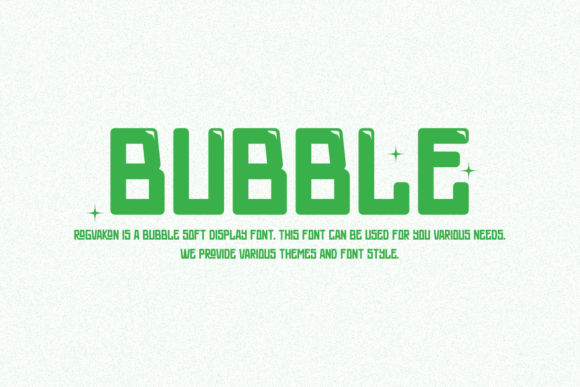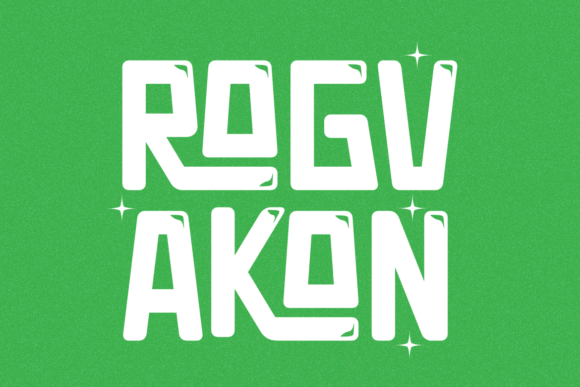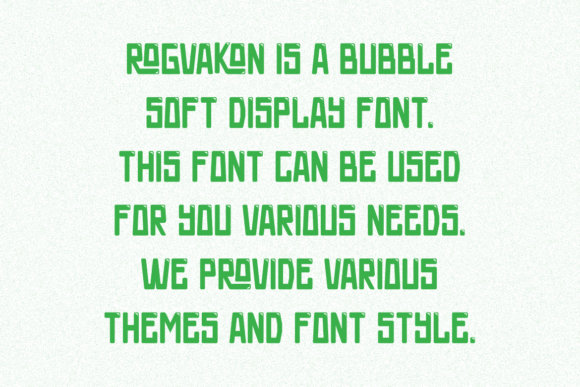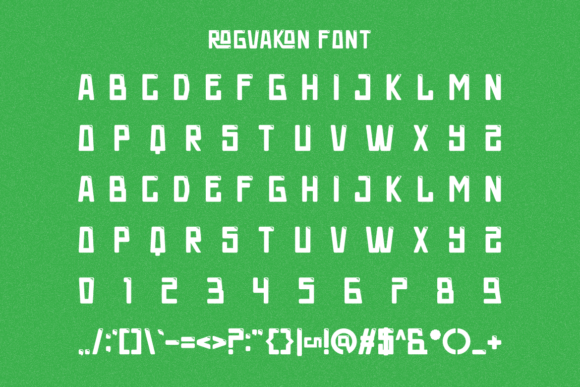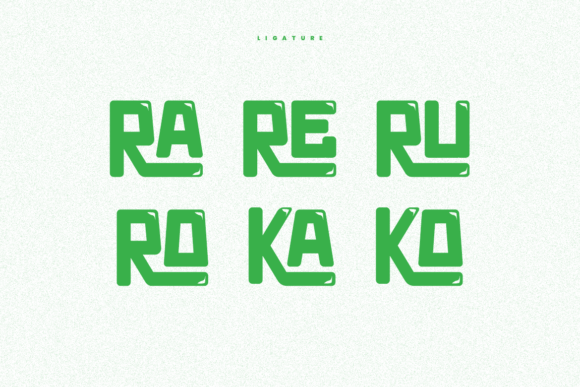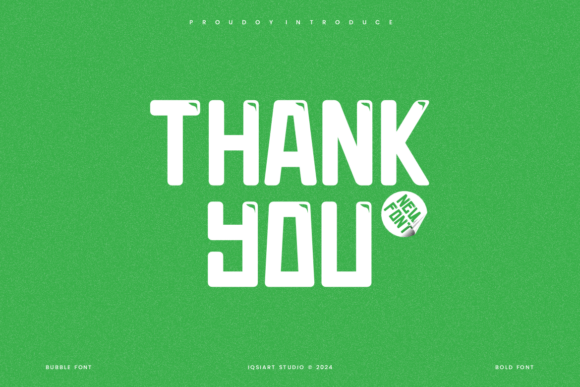
Introduction to Rogvakon Font
Remember that moment when you’re working on a creative project and you need the perfect font to make it pop? You’ve scoured through countless design resources, but nothing seems to capture the essence of your vision. That’s where Rogvakon Font comes in – a game-changing, high-quality font that’s about to take your design to the next level.
With its bold, bubbly, and shiny display style, Rogvakon Font is the perfect addition to any design project. Its rounded letters and fun, eye-catching style make it stand out from the crowd, guaranteeing your creative project gets the attention it deserves. Whether you’re looking for a free download or a design resource that’s sure to impress, Rogvakon Font is a valuable asset for any designer.
But what really sets Rogvakon Font apart is its versatility – it’s perfect for big headlines, playful designs, and even projects with transparent backgrounds. With Rogvakon Font, the possibilities are endless, and we can’t wait to see what you create with it!
Key Features of Rogvakon Font
- High-quality, professional design ideal for creative projects and design resources
- Unique, futuristic style with a transparent background, allowing for easy customization and layering
- Perfect for use in digital design, including logos, graphics, and UI elements, at resolutions up to 300 DPI
- Available in multiple font sizes, from 12pt to 72pt, making it versatile for various design applications
- Designed to be highly legible and visually striking, making it an excellent choice for any creative project
Honest Review: Rogvakon Font
I recently had the chance to work with the Rogvakon Font for a creative project, and I must say, it was a great experience. The font is a fantastic design resource for anyone looking to add a touch of elegance and sophistication to their work.
- High quality: The Rogvakon Font is incredibly detailed and smooth, making it perfect for printing and digital use.
- Transparent background: This feature allows for seamless integration with any background, giving you more creative freedom.
- ⚠️ Limited font styles: The Rogvakon Font comes in a limited number of styles, which may not be suitable for projects that require a wide range of font options.
- ⚠️ Not ideal for bold text: While the font is great for regular text, it may not be the best choice for bold or italic text, as it can become difficult to read.
Overall, I’m impressed with the Rogvakon Font and would recommend it for any design project where a high-quality, elegant font is required. With its transparent background and free download, it’s a great resource for designers of all levels.
How to Use Rogvakon Font
The Rogvakon Font is a high-quality design resource ideal for creative projects. It offers a unique and modern style with a transparent background, making it versatile for various applications.
Tips for Getting the Most Out of Rogvakon Font
To get the most out of the Rogvakon Font, use it in combination with other design elements, such as images and graphics. Experiment with different font sizes, colors, and styles to create a unique and engaging design.
The Rogvakon Font is ideal for various creative projects, including social media posts, graphics, logos, presentations, and documents. Its modern and unique style makes it perfect for any design project requiring a high-quality and professional look.